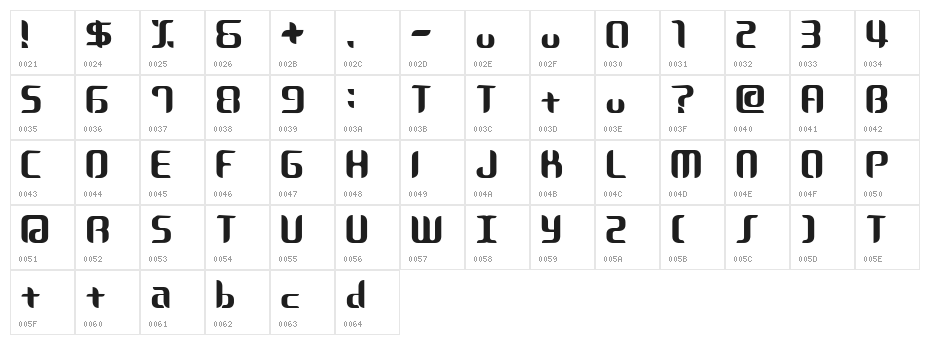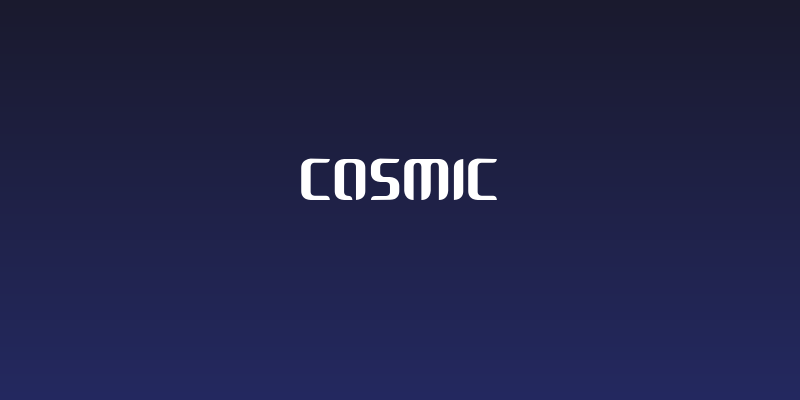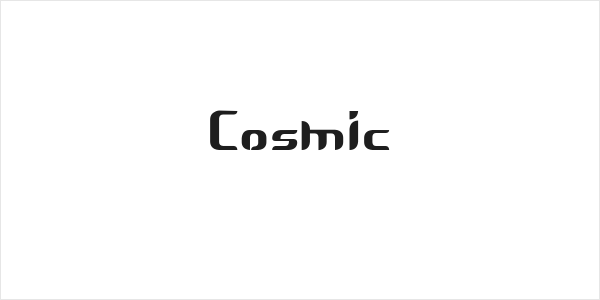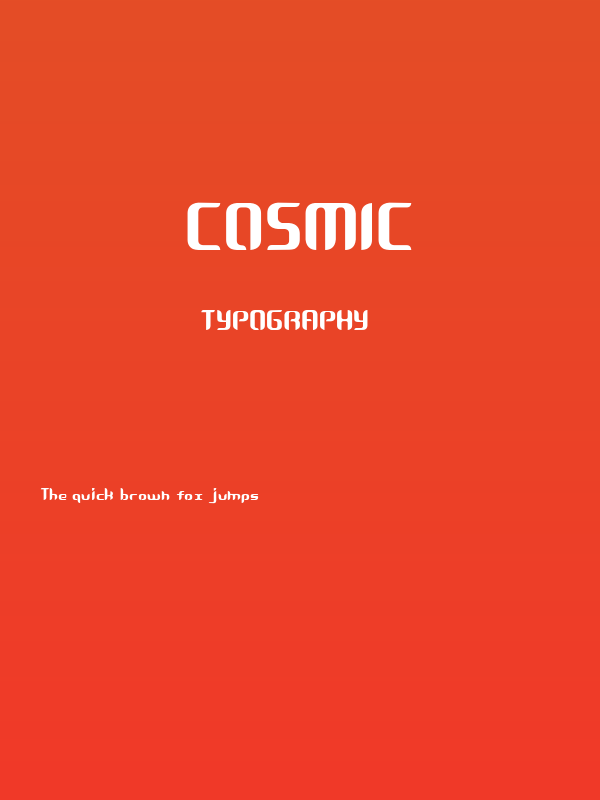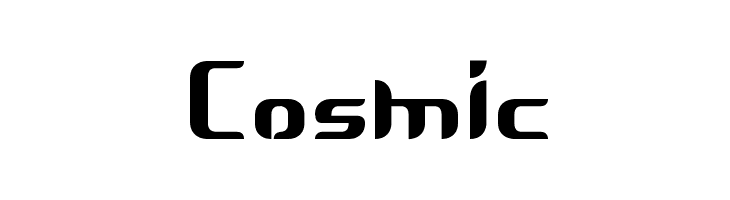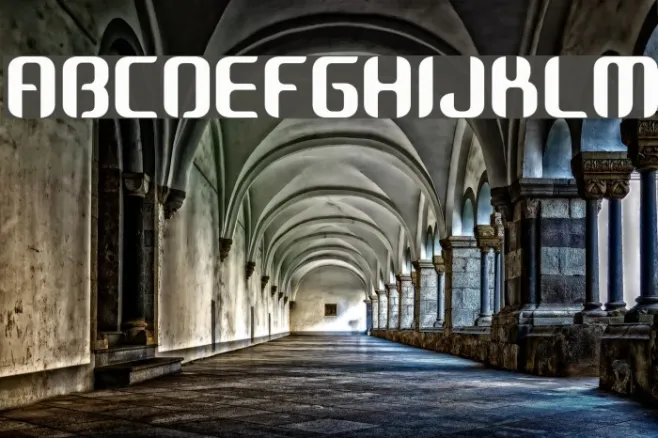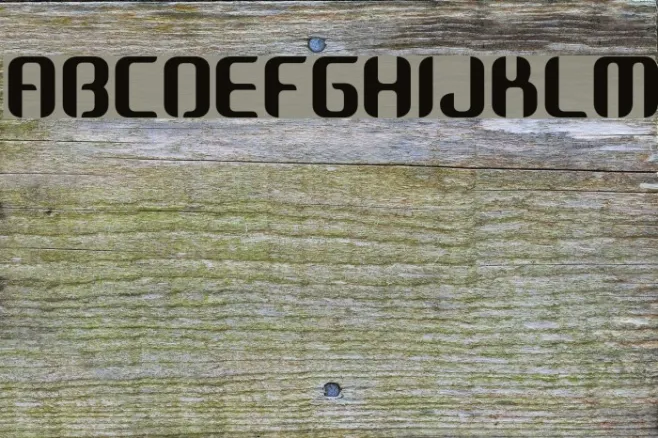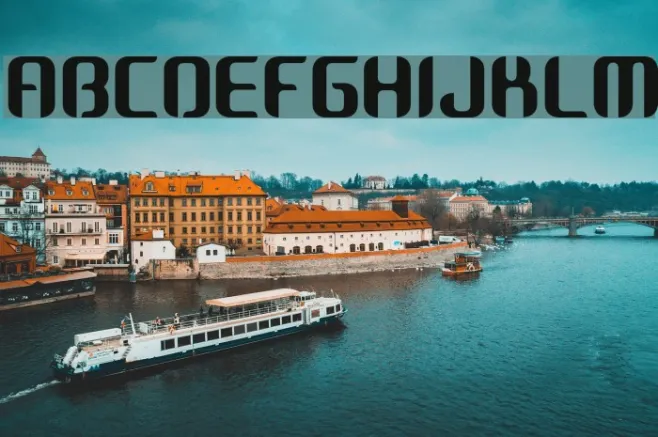
Cosmic Font
Cosmic Description
This font features a futuristic and geometric design, with rounded edges and a bold presence. The characters are uniform in height, giving a cohesive and structured appearance. The uppercase letters are distinct with a modern flair, while the lowercase letters maintain a consistent style that complements the uppercase. The numbers are clear and easy to read, following the same geometric style. Special characters are uniquely designed to match the overall aesthetic, making this font suitable for creative and contemporary projects.
| Proposed Projects | Ideal for sci-fi themed designs, technology branding, modern posters, and innovative product packaging. |